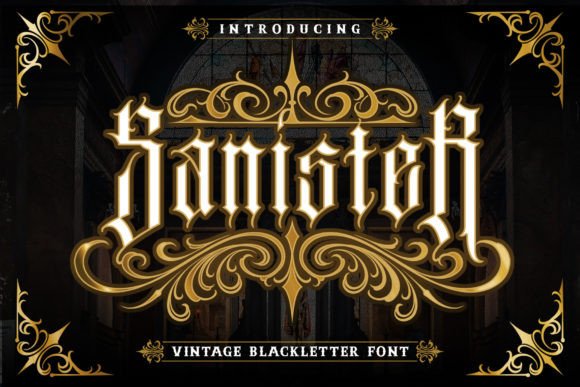
Introducing Sanister Font, the epitome of vintage blackletter elegance! Created by Dansdesign, this font is designed to captivate and inspire. With its intricate curves and sharp edges, Sanister exudes a menacing yet sophisticated aura that is sure to leave a lasting impression.
Are you in search of the perfect font for your music projects? Look no further! Sanister is the answer. Its tall, angular letterforms make it ideal for headlines and logos, especially for brands that want to convey a sense of tradition and history. Imagine the impact this font will have on your audience, instantly transporting them to a bygone era filled with grandeur and mystique.
Sanister is not just another font; it is a work of art. Its unique style and attention to detail make it stand out from the crowd. Every stroke and curve has been meticulously crafted to create a sense of old-world charm, adding a touch of sophistication to any project.
Whether you're designing album covers, event posters, or merchandise for your music projects, Sanister Font will elevate your creations to new heights. Its captivating presence will draw attention and leave a lasting impression on your audience, making your brand unforgettable.